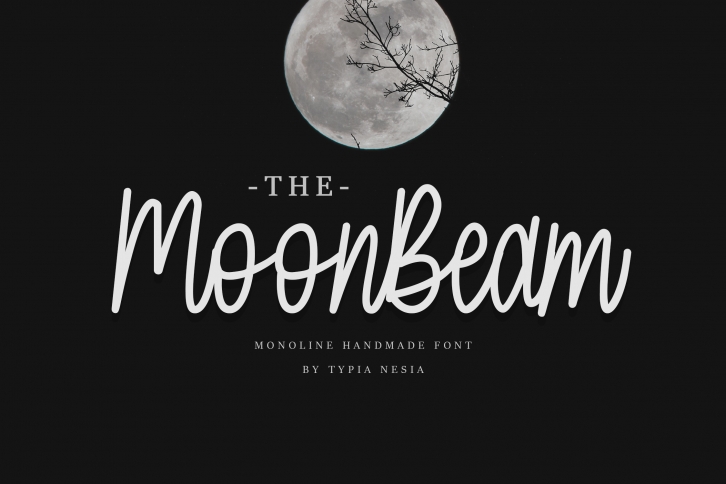
MoonBeam is a great font that was designed by Typia nesia. Imagine the amount of combinations you can create using this font! The archive is 4.31 MB and it was released on July 22, 2019. MoonBeam looks beautiful on wedding invitations, greeting cards, logos, posters, labels, t-shirt designs, logos, business cards and is perfect for use in ink or watercolor works, fashion, magazines, packaging and food menus, children's books and more!